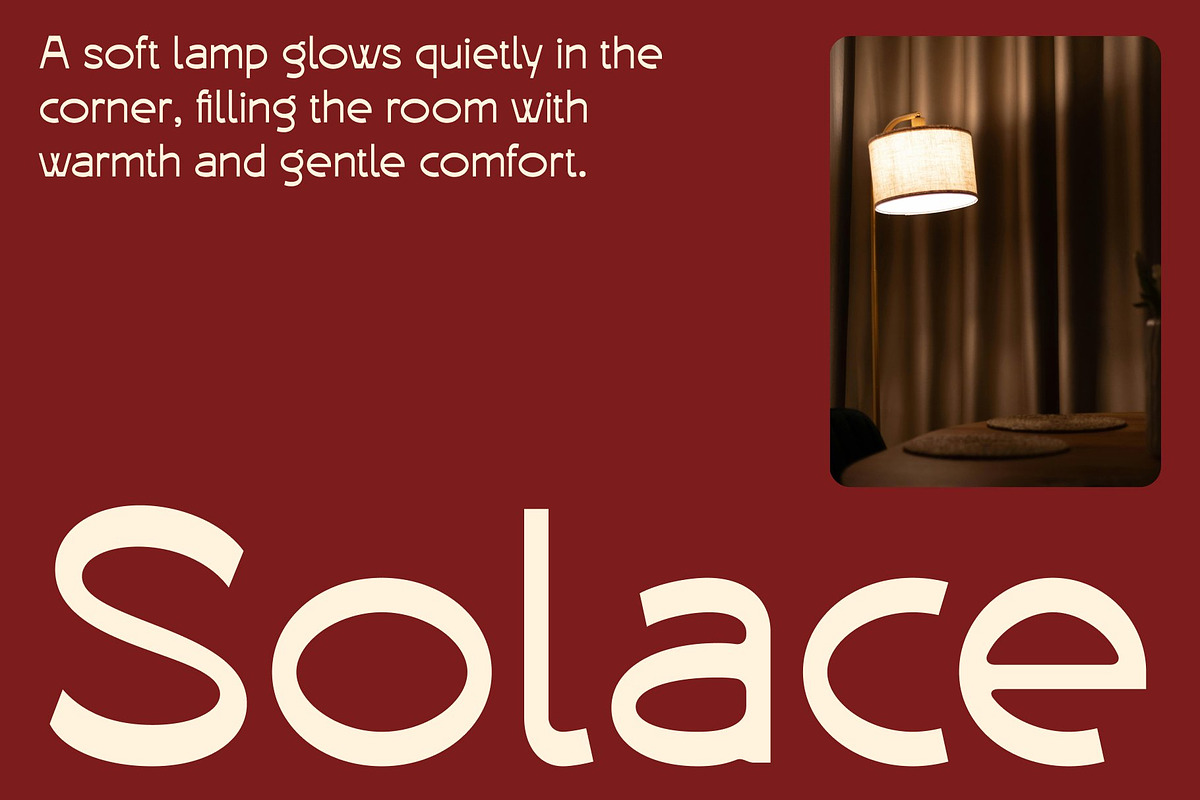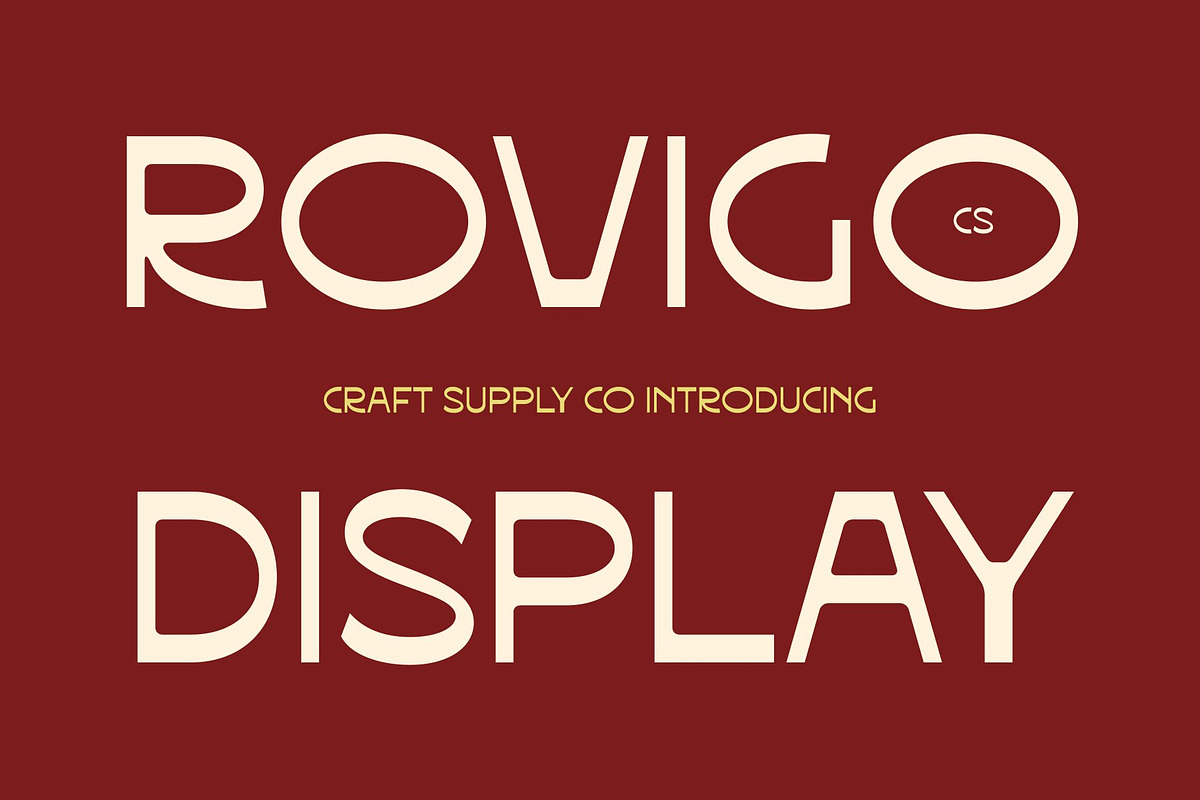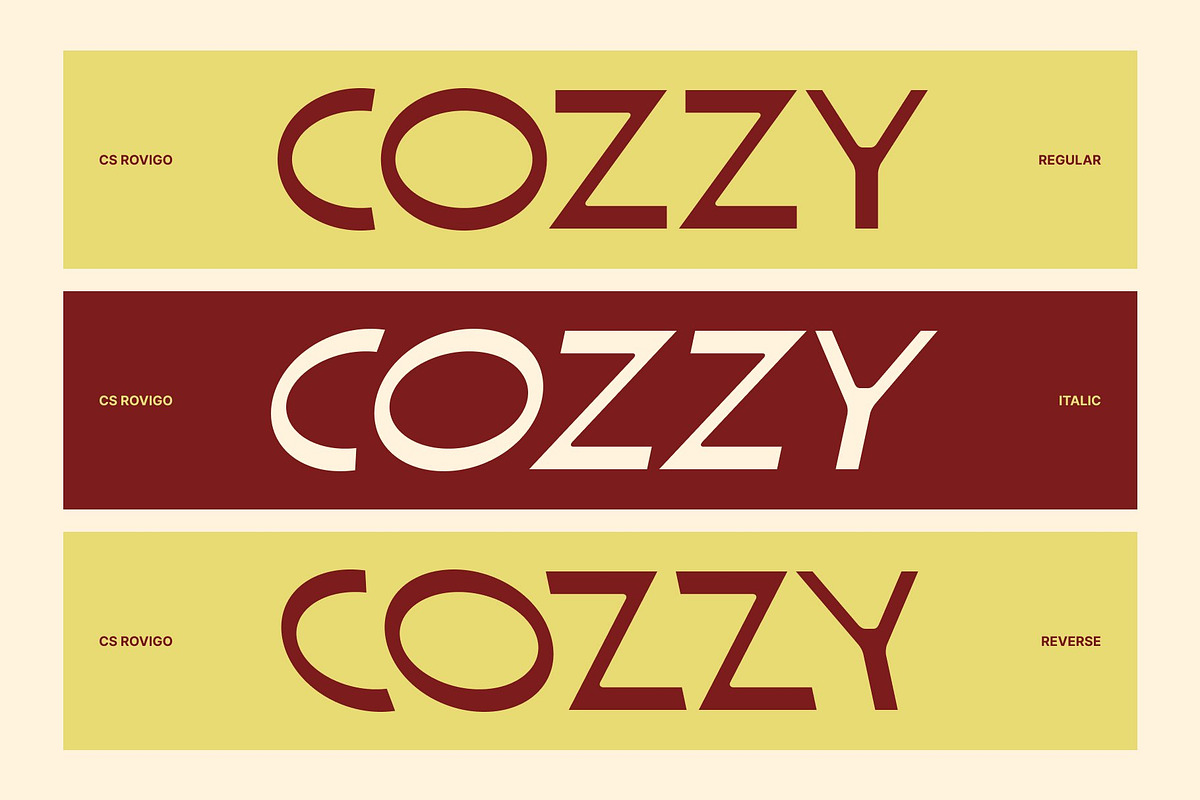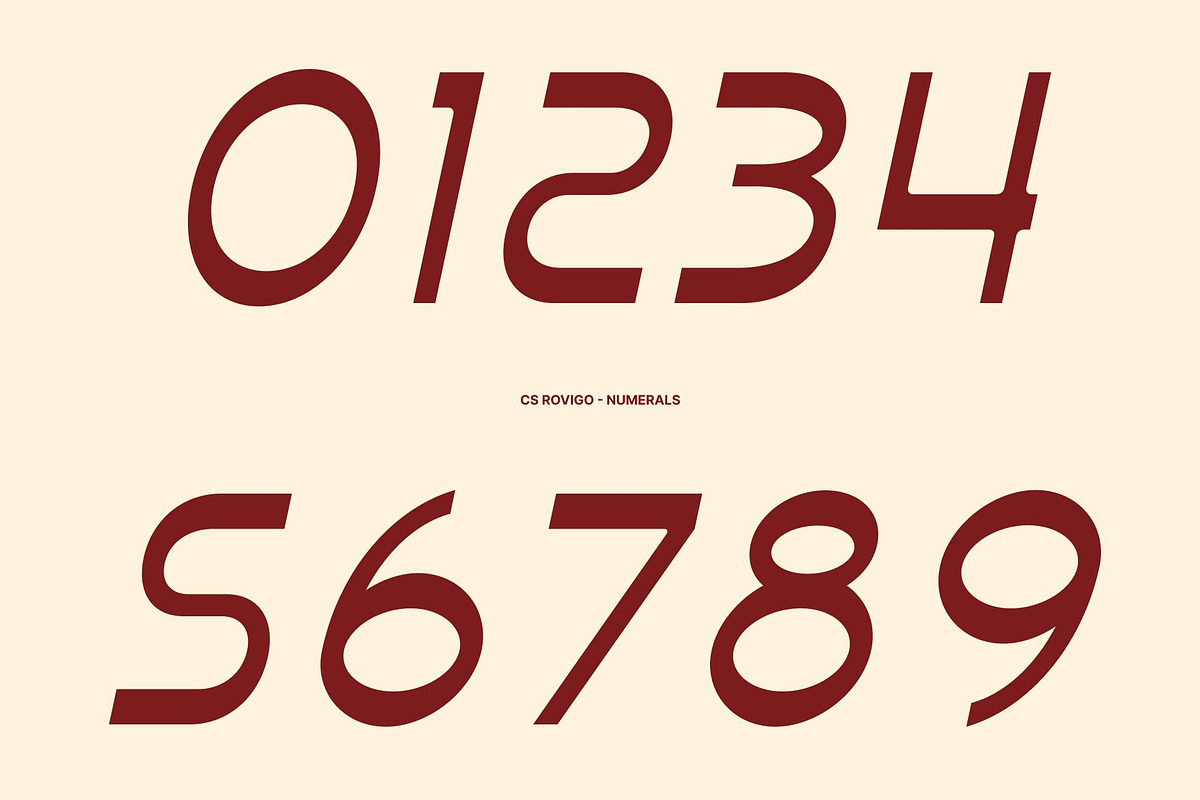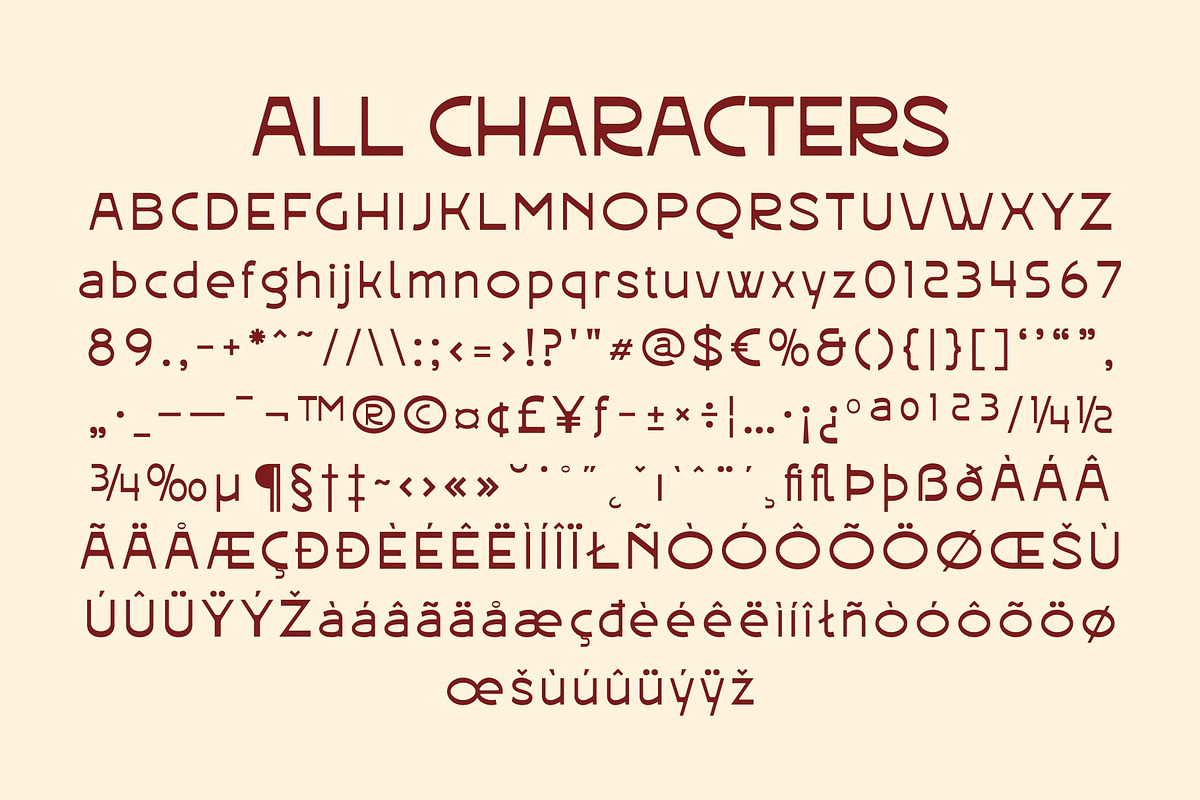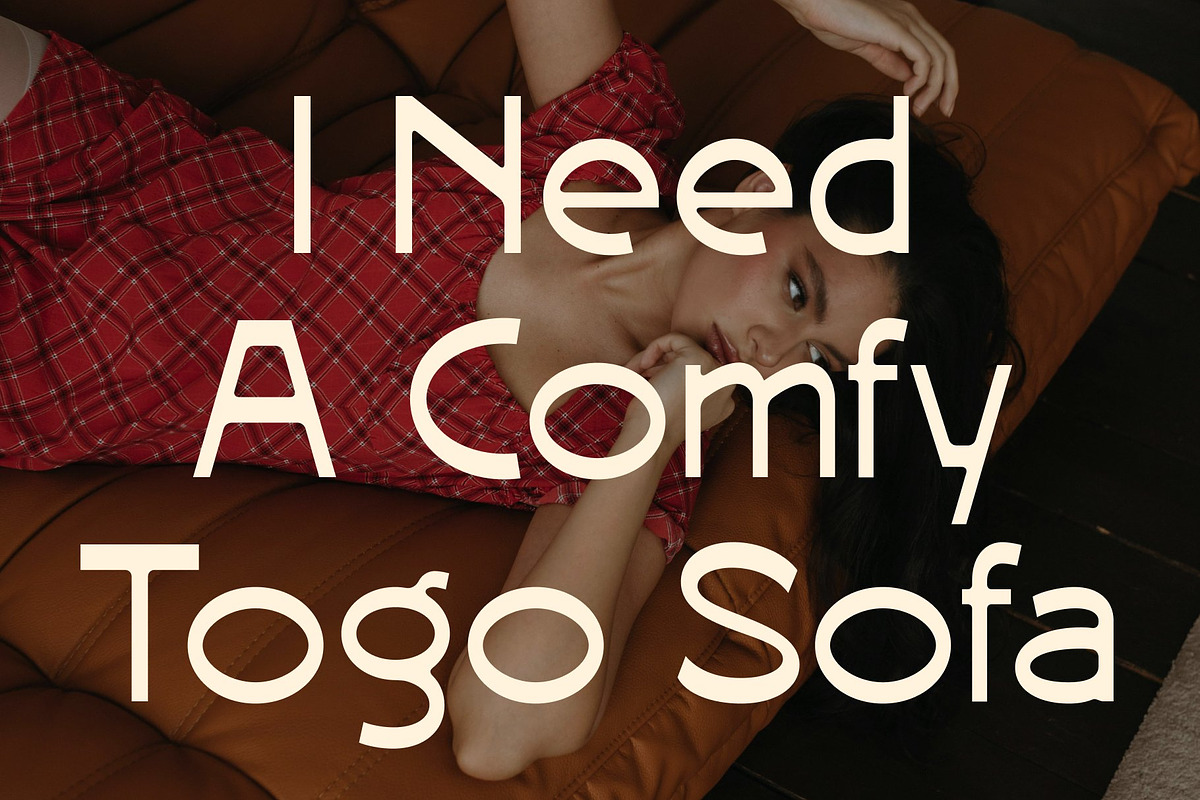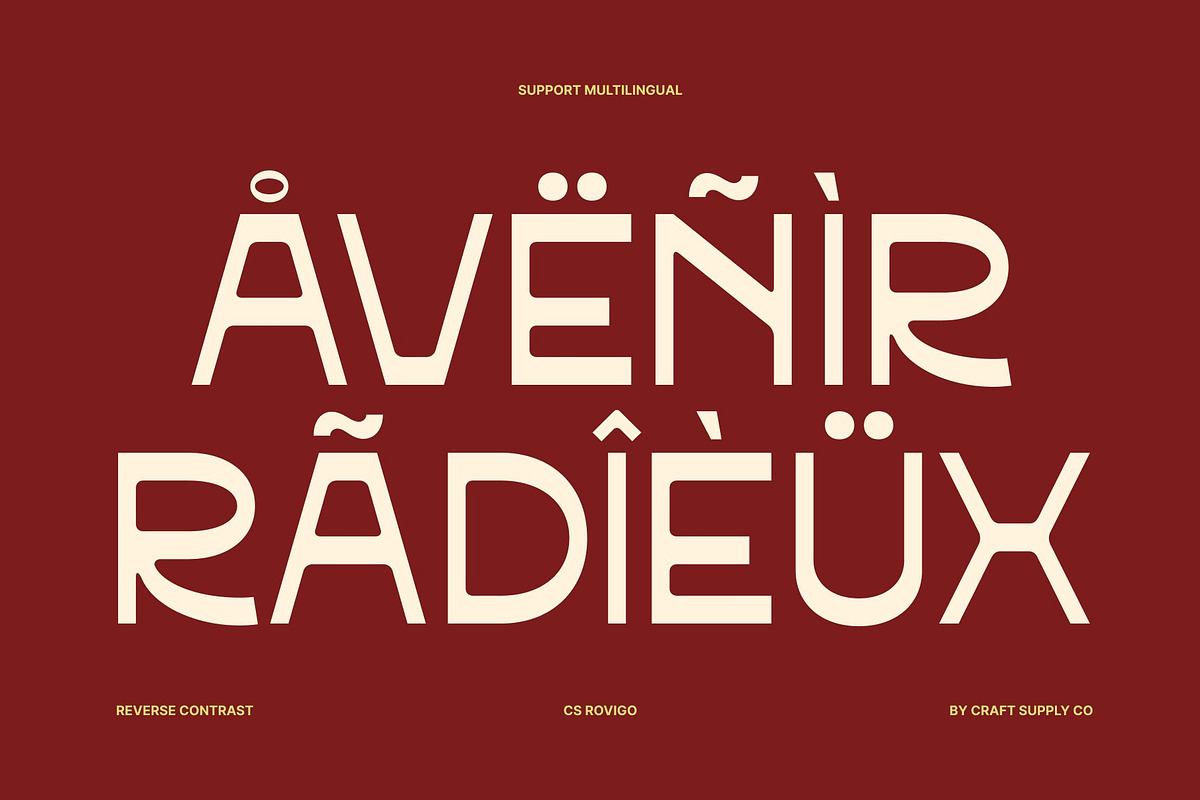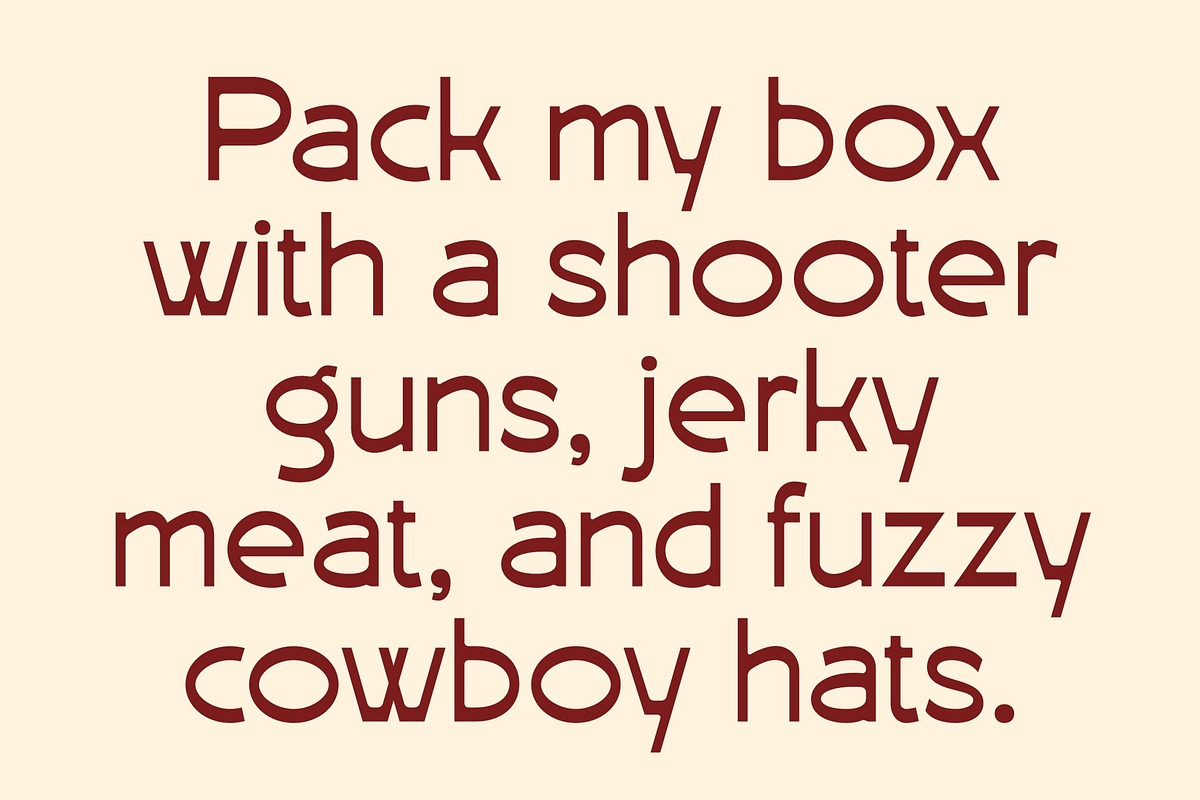
CS Rovigo – Retro Font
CS Rovigo – Retro Modern Sans Serif with Playful Geometry
Modern Sans Serif with Retro Inspiration This is a modern sans serif font that blends retro charm with contemporary clarity. Its smooth shapes and balanced proportions create a friendly, approachable personality while maintaining a clean and modern structure. The result is a typeface that feels nostalgic yet fresh, perfect for designs that celebrate both past and present influences.
Smooth Shapes with Playful Geometry The letterforms of this font feature soft curves and geometric construction that bring a playful rhythm to every word. This combination of smoothness and structure creates a lively, energetic tone while preserving excellent readability. The geometric style gives the font a confident and modern foundation.
Fresh Style with Contemporary Touch This font delivers a bright and youthful aesthetic through its clean lines and subtle retro influence. It feels expressive and dynamic without losing professionalism, making it suitable for a wide range of creative projects that aim to feel modern, cheerful, and visually engaging.
Perfect for Editorial and Retro Branding Ideal for editorial layouts, digital design, modern branding, and retro-inspired campaigns, this font shines in headlines, posters, and promotional visuals. Whether used for nostalgic branding or contemporary creative work, it provides a fresh, playful typographic voice that stands out with ease.
CS Rovigo Regular
CS Rovigo Italic
CS Rovigo Reverse Italic